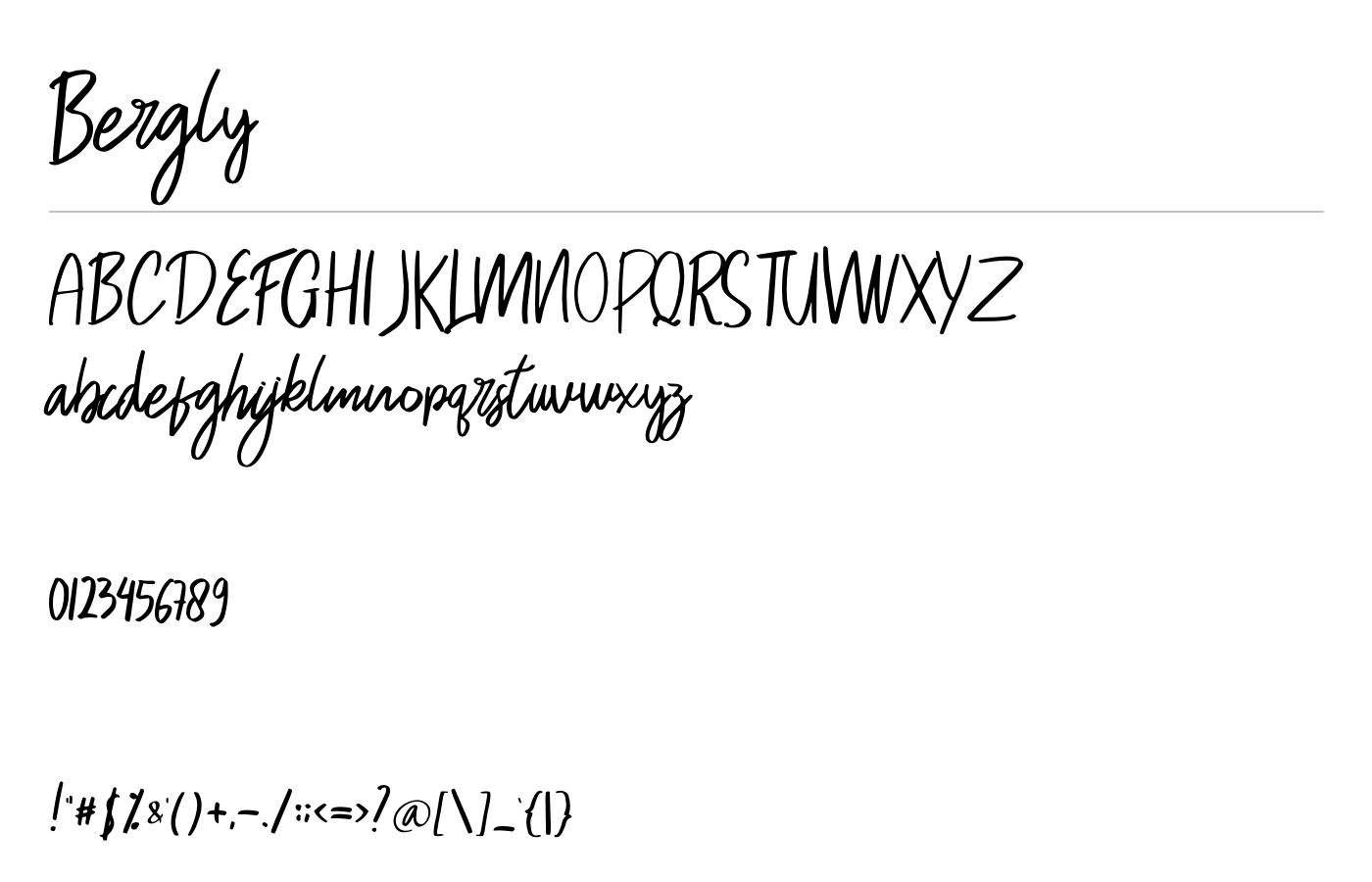
Bergly is a lively, handwritten script font with a natural, flowing style that feels both casual and expressive. Its slender, slightly irregular strokes and distinct letterforms add a personal, artistic touch, making it ideal for creative branding, invitations, and social media graphics where a friendly, approachable vibe is desired. This font works well for designs that need a human touch with a stylish, modern flair.
Bergly Font
About Bergly Font